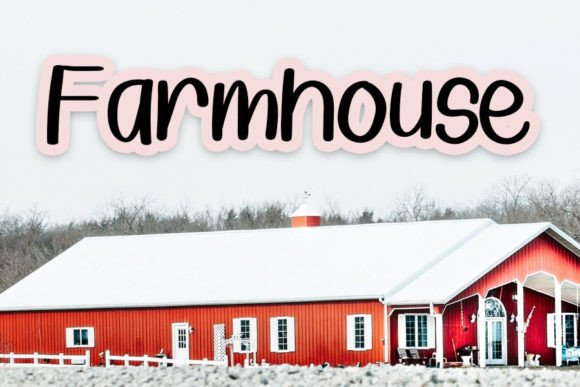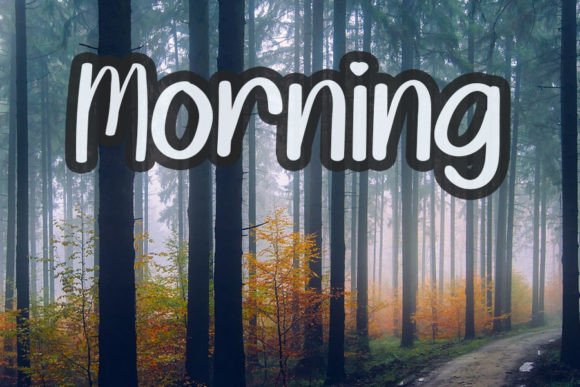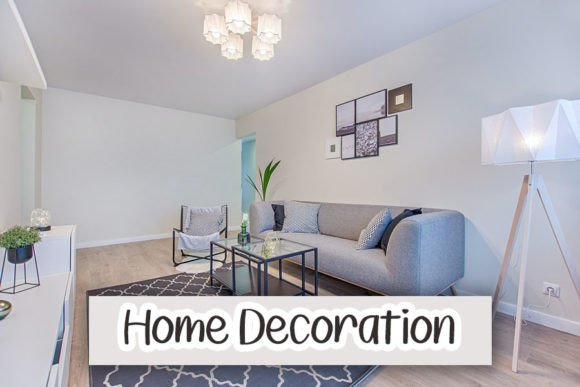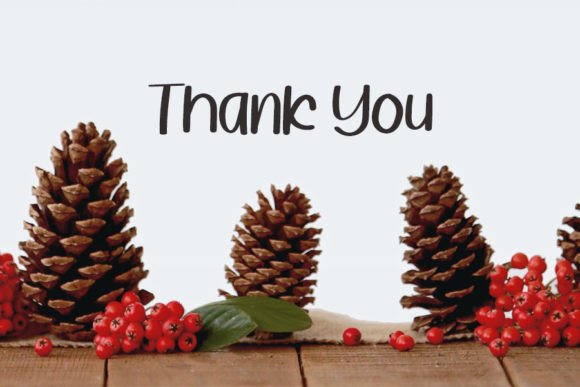
Blackout Font
Blackout Handwritten Font – Neat and Simple Typeface
The Blackout Handwritten Font is a clean and versatile typeface that brings a modern handwritten touch to your creative projects. With its smooth lines and simple flow, it works across both digital and print media. Whether you’re creating Instagram posts, calligraphy pieces, or greeting cards, this font adds a stylish and personal charm.
A Simple Handwritten Style
The Blackout Handwritten Font combines neat curves with a casual handwritten look. Its minimal yet stylish strokes ensure readability, while its handcrafted energy keeps designs fresh. Because of this, it is perfect for everyday creative use as well as professional branding.
Perfect for Instagram and Greeting Cards
The Blackout HandwrittenFont is especially popular for social media content, particularly Instagram posts that need a natural and stylish feel. It also enhances greeting cards, thank-you notes, and invitations. Its ability to blend playfulness with elegance makes it adaptable to many types of projects.
Versatility for Creative Projects
From headlines and posters to DIY calligraphy and product packaging, the Blackout Handwritten Font adapts well to different creative tasks. Its neat and modern strokes ensure it can be used for both decorative and professional work. This versatility makes it a reliable choice for designers.
Why Designers Love Blackout Font
Designers love fonts that balance simplicity with personality. The Blackout Handwritten Font does exactly that, offering a clean handwritten look that feels approachable and stylish. Its adaptability makes it a valuable addition to any font collection.
In summary, the Blackout HandwrittenFont is a neat, simple, and versatile typeface. With its natural handwritten strokes, easy installation, and wide usability, it is perfect for Instagram posts, greeting cards, calligraphy projects, and branding. Don’t miss the chance to download Blackout HandwrittenFont and give your designs a personal and stylish touch.